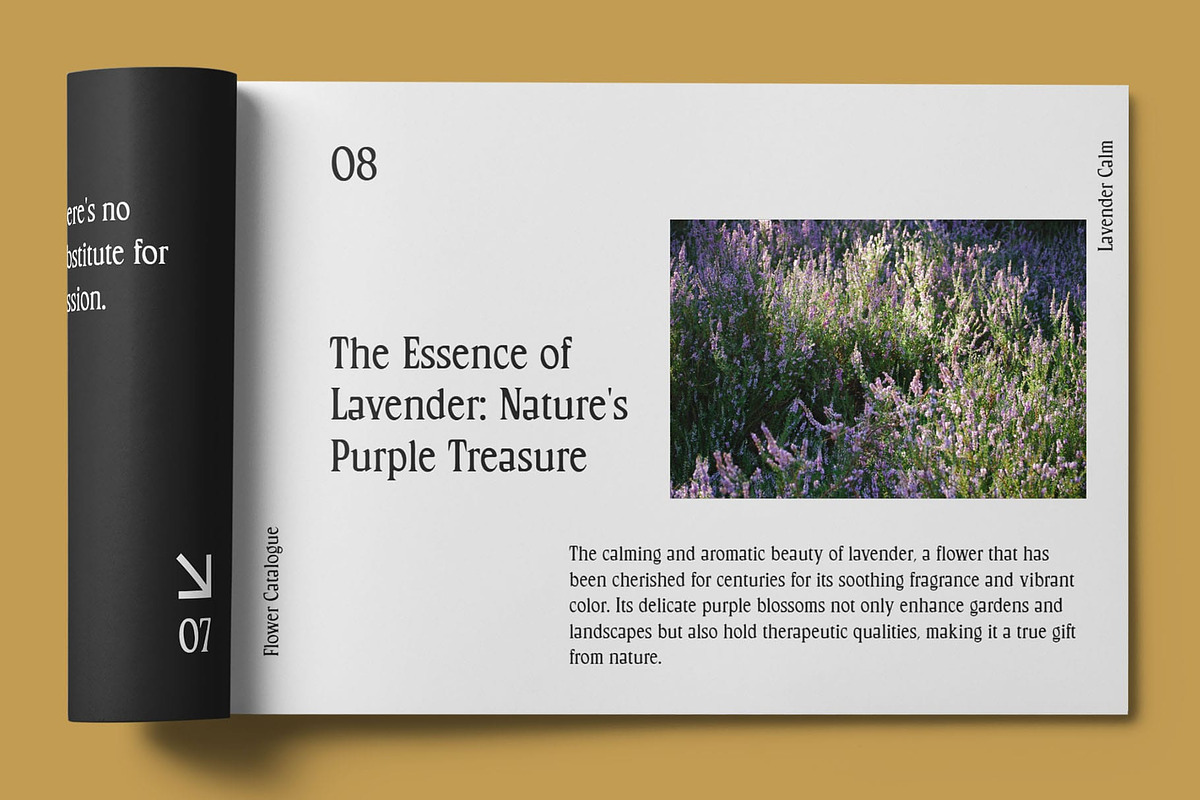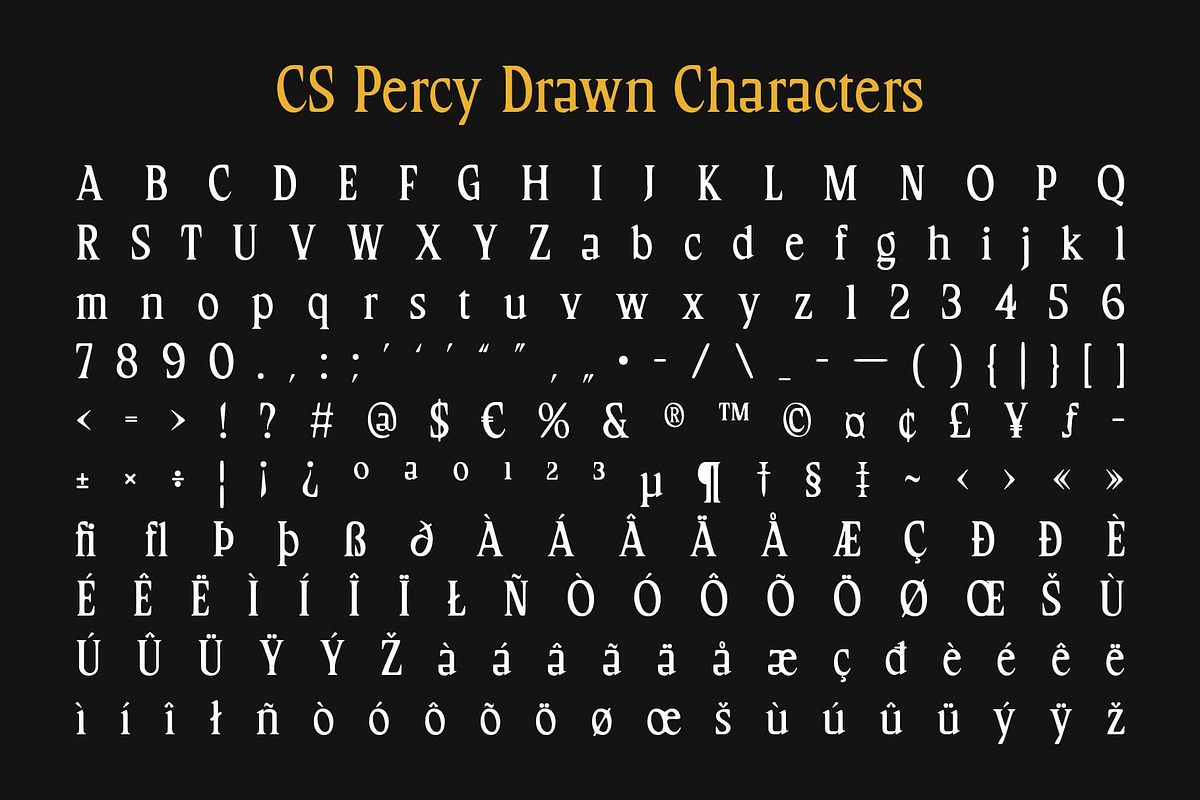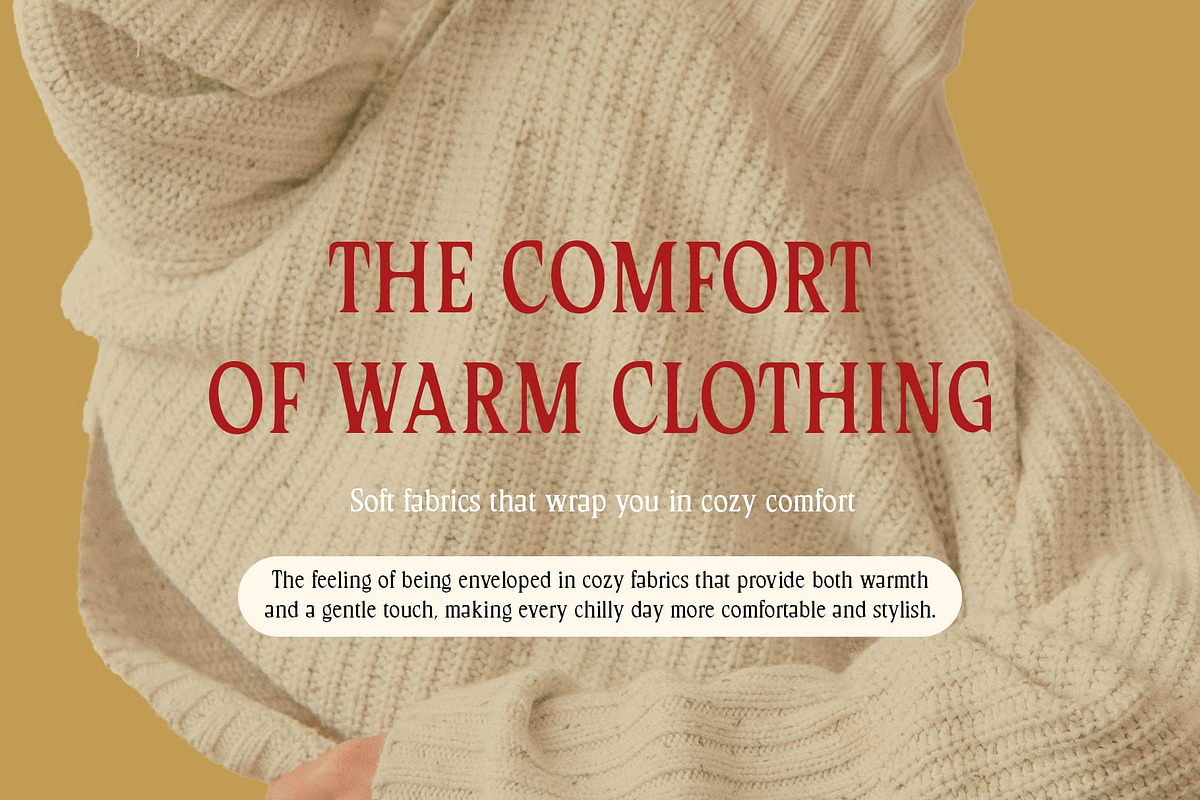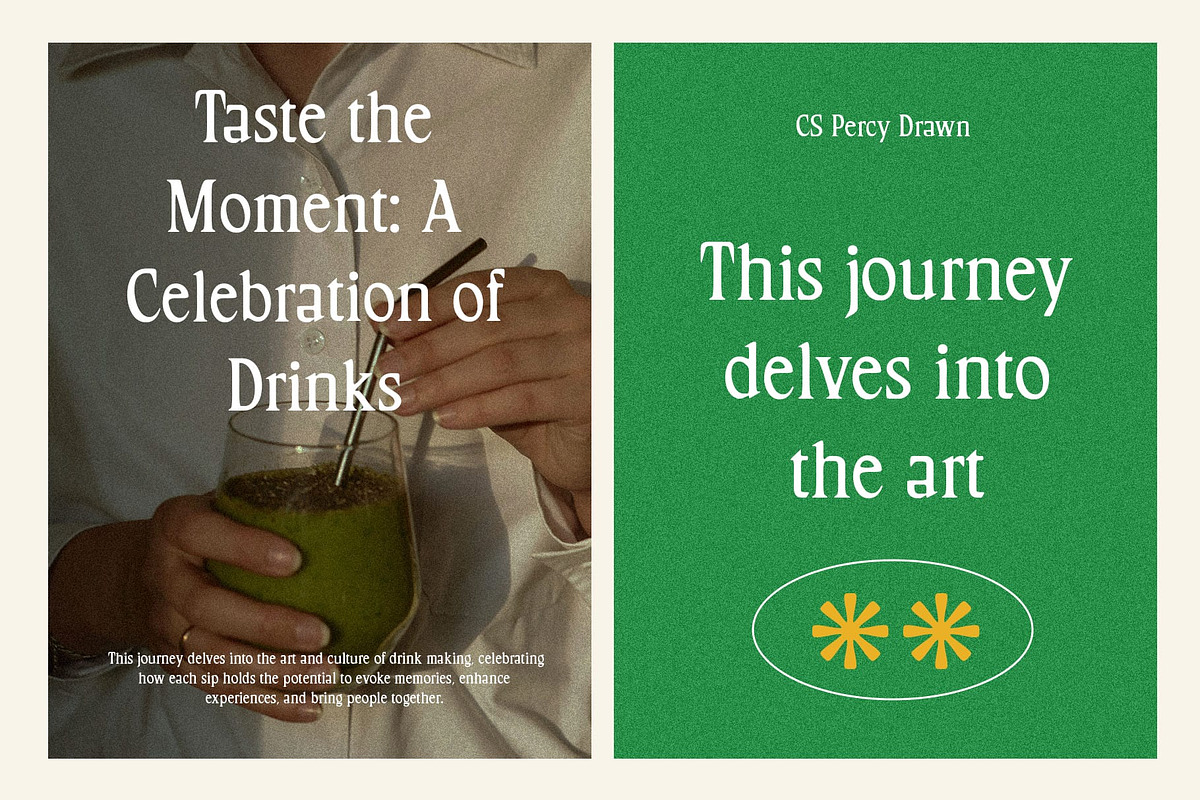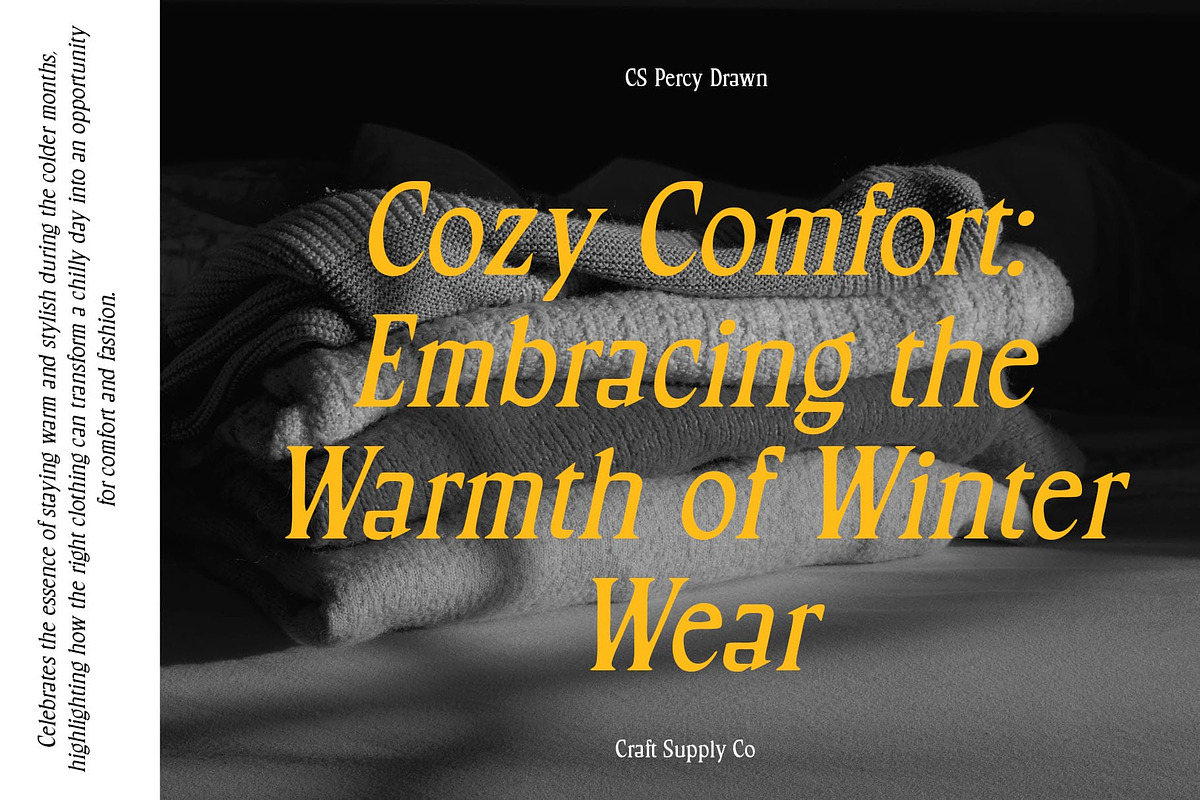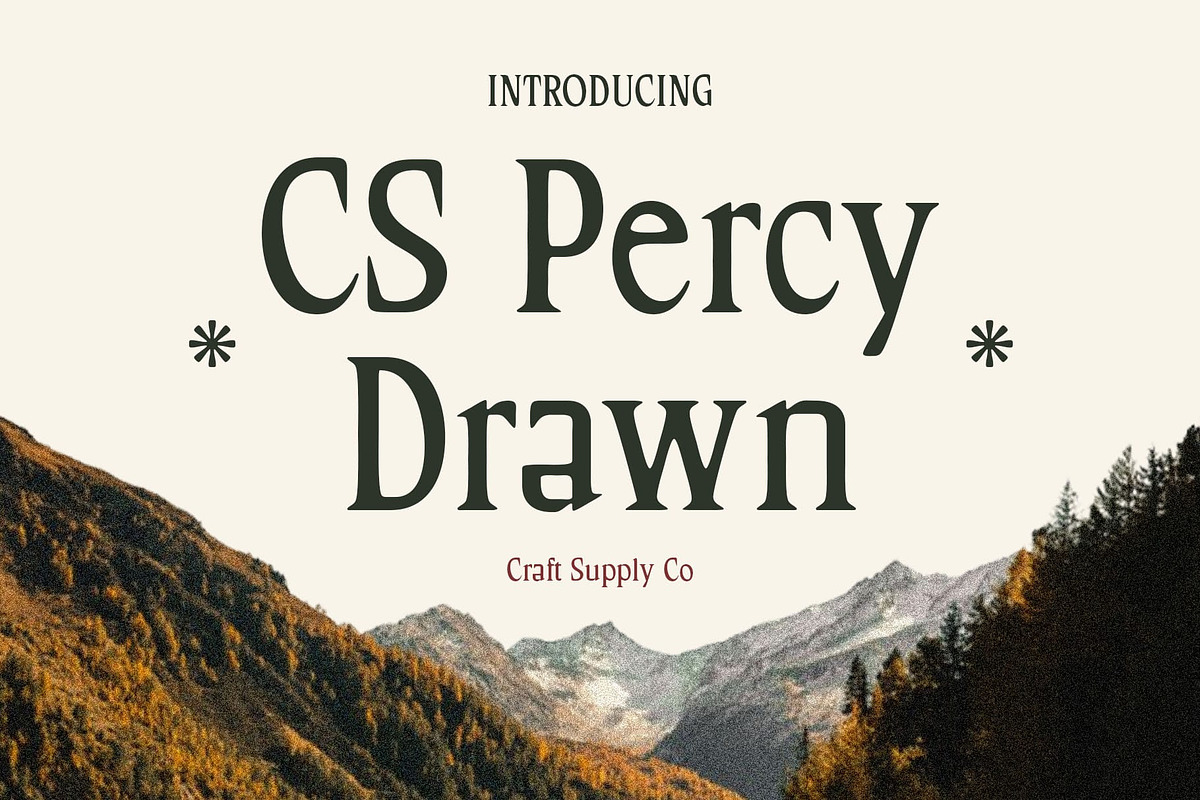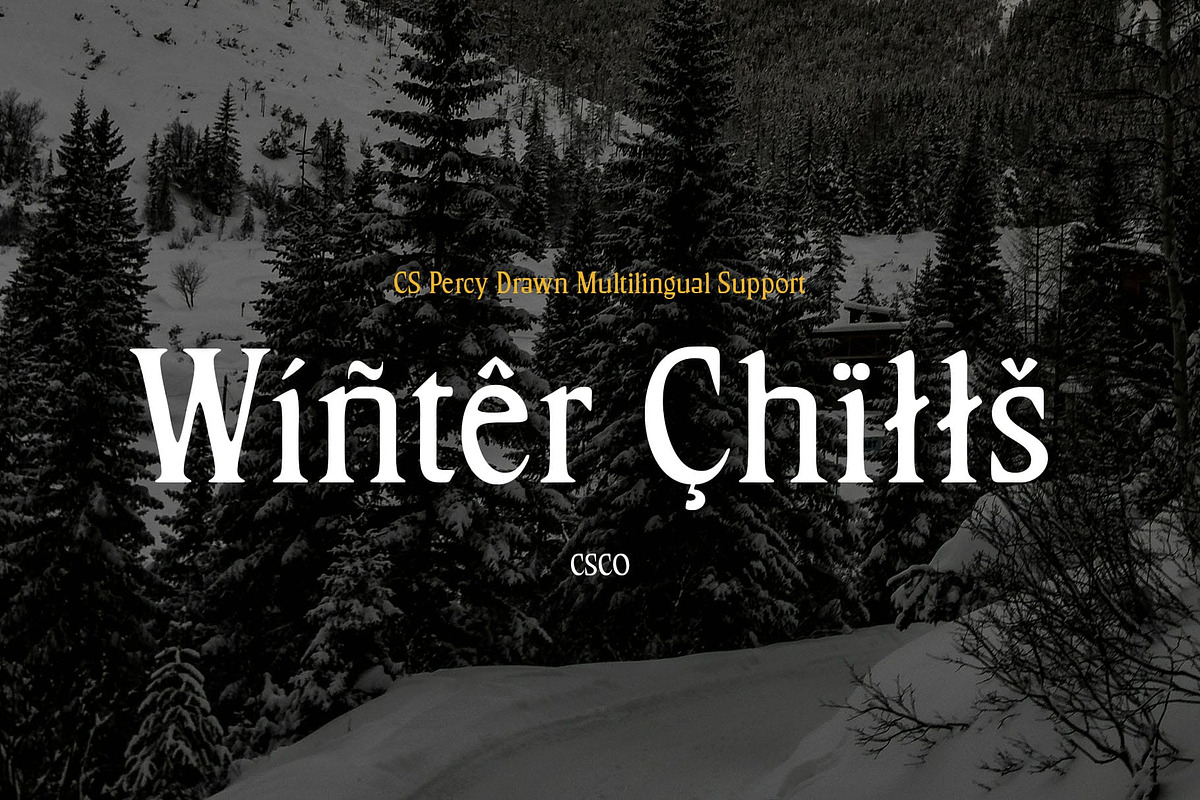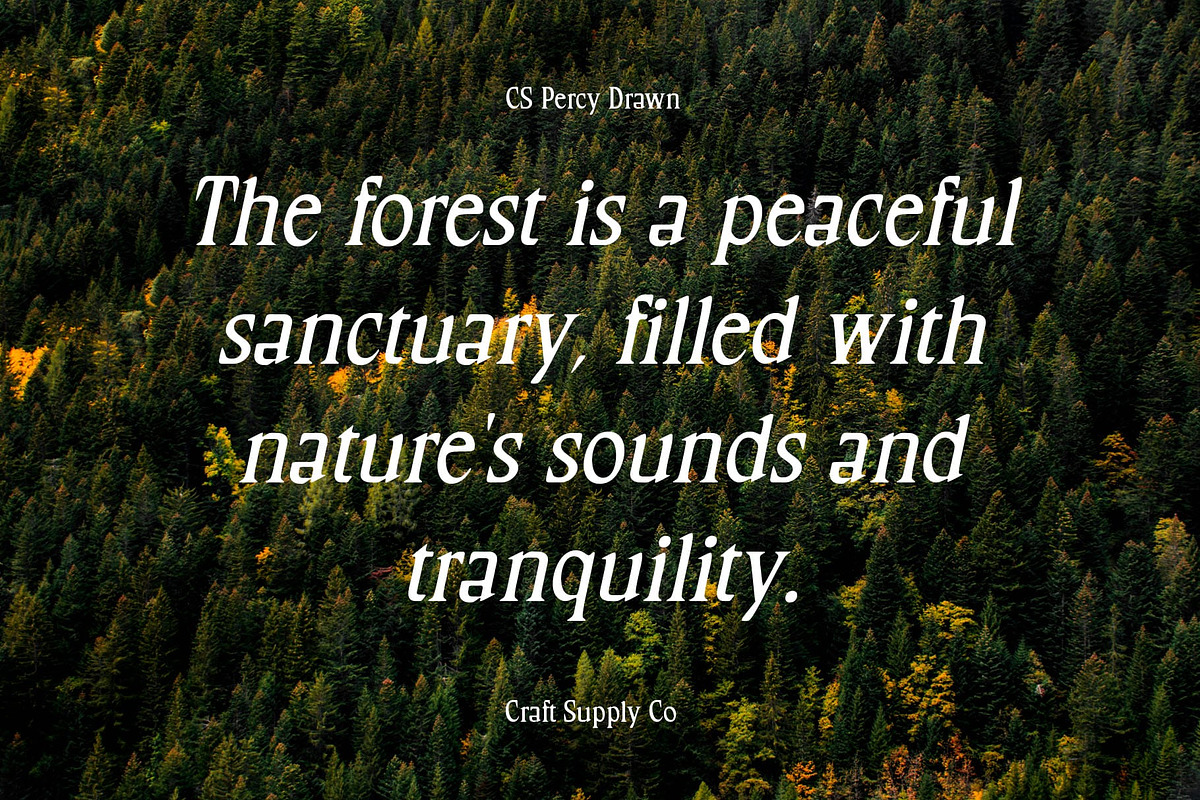
CS Percy Drawn
CS Percy Drawn – Classic Elegance with Artistic Flair
Elegant Serif Font with Hand-Drawn Effect CS Percy Drawn is a classic serif font that seamlessly blends the sophistication of traditional serif design with the charm of a hand-drawn effect. The sharp, well-defined serifs evoke a formal, timeless appeal, while the drawn effect adds an organic and artistic layer, introducing a personal, handcrafted feel to each character. This combination of formal and creative elements results in a font that is both classic and uniquely expressive.
Timeless Elegance Meets Organic Creativity The structured, refined serifs in this font exude elegance, making it an ideal choice for projects that require a sense of authority and tradition. However, the hand-drawn effect softens the font’s formality, infusing it with warmth and a unique character. This delicate balance of classical design and creative expression makes it perfect for a variety of design applications, from high-end invitations to vintage-inspired logos.
Perfect for Formal yet Creative Designs Whether used for official invitations, vintage branding, editorial layouts, or luxury marketing, this drawn font brings a sense of prestige and artistic charm to any project. Its versatility allows it to stand out in designs that need both a classic touch and a personal, distinctive feel. The hand-drawn elements bring visual depth, making each letter feel uniquely crafted and full of personality.